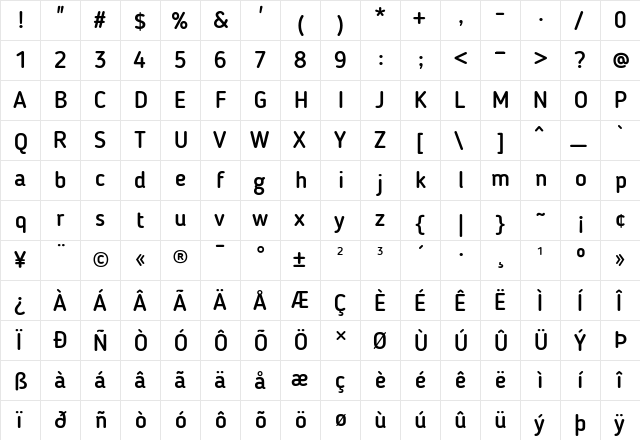
Blogger Sans Medium
| Foundry | Sergiy S. Tkachenko |
| Designer | Sergiy S. Tkachenko |
Design Context for Blogger Sans Typeface
Blogger Sans offers clean, dependable letterforms without strong stylistic allegiance, making it a practical choice for designers who need flexibility.